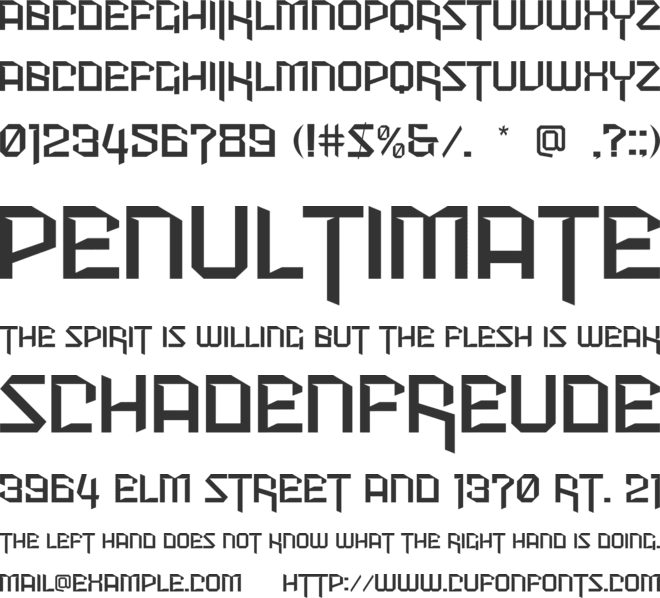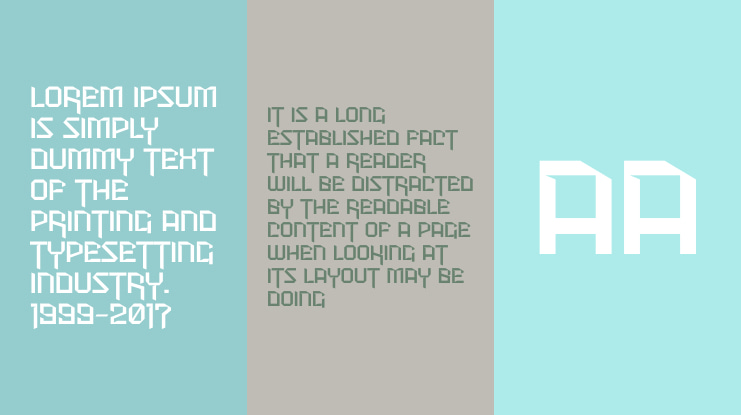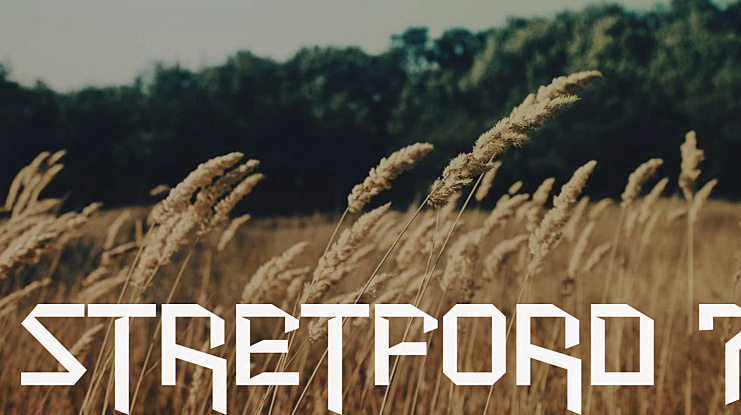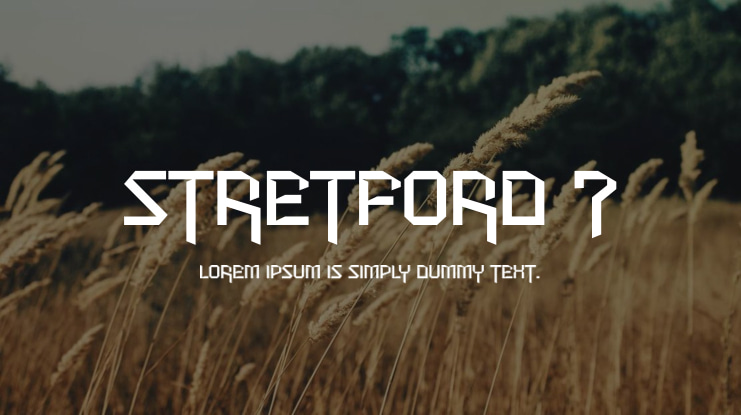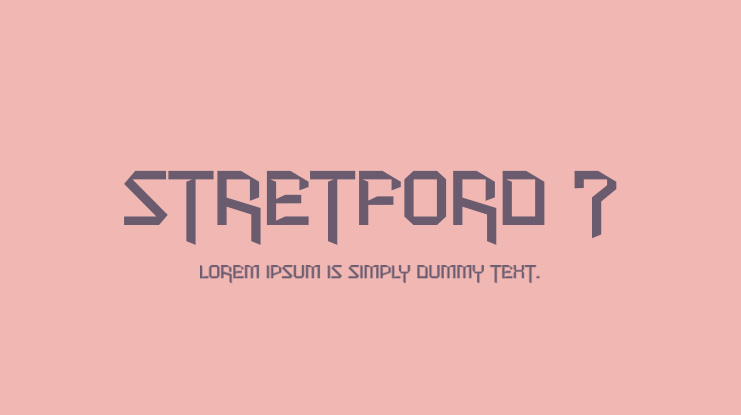
Stretford 7 Font Family
Stretford 7 is a cool and modern display inspired by football. It is the perfect font for any sport or racing-themed projects, such as logos, posters, t-shirts, and much more. Add this font to your creative ideas and notice how it will make them stand out!